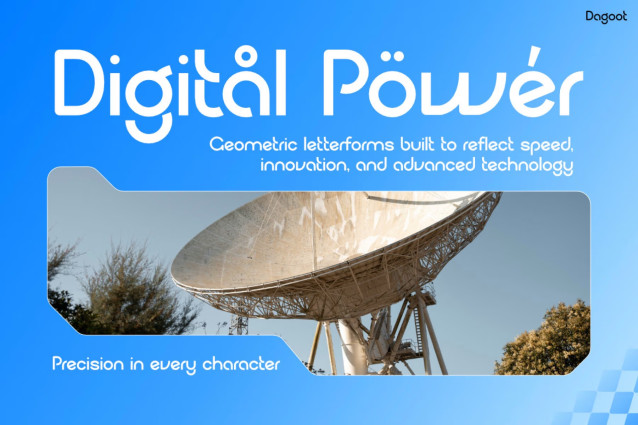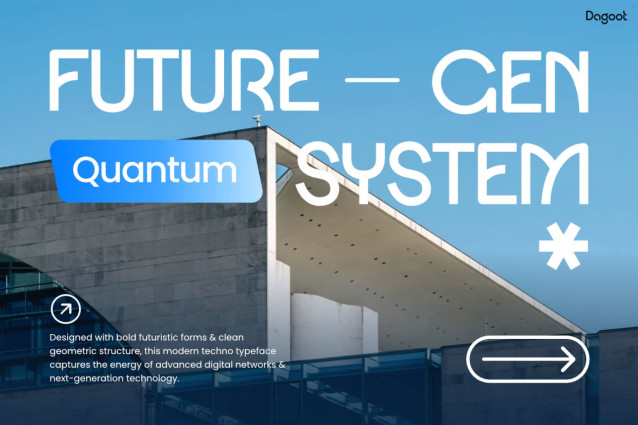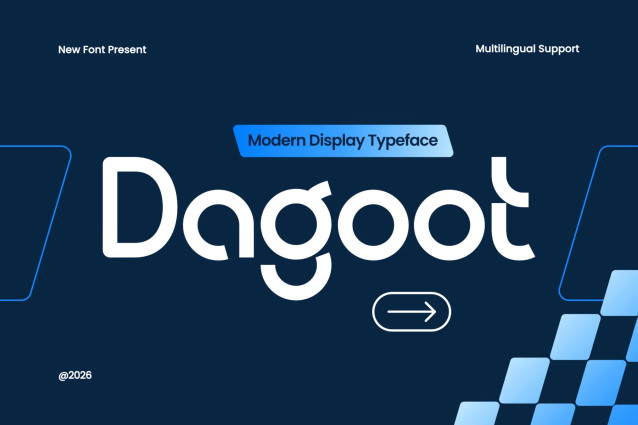
Dagoot is a futuristic display font with clean geometric shapes and a bold digital style. Perfect for tech branding, gaming graphics, modern logos, and powerful headlines.
Modern Font Dagoot blends modern geometry with futuristic styling to create a distinctive display typeface. Each letterform is carefully crafted with smooth curves and clean edges. Therefore, the font delivers a sleek digital aesthetic that feels modern and polished. At the same time, the rounded shapes add character while keeping the typography easy to read.